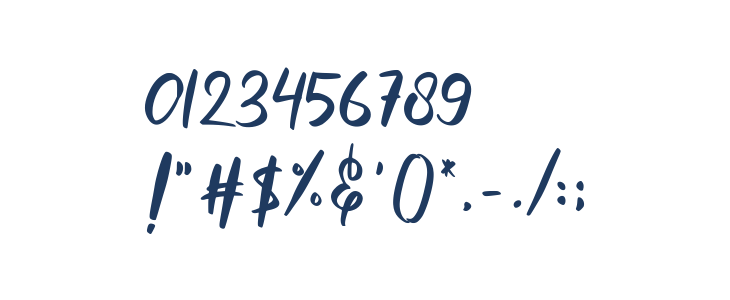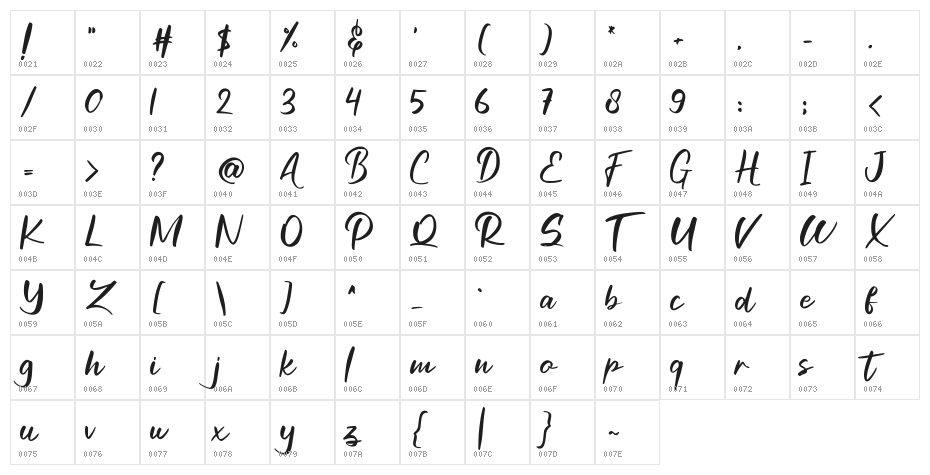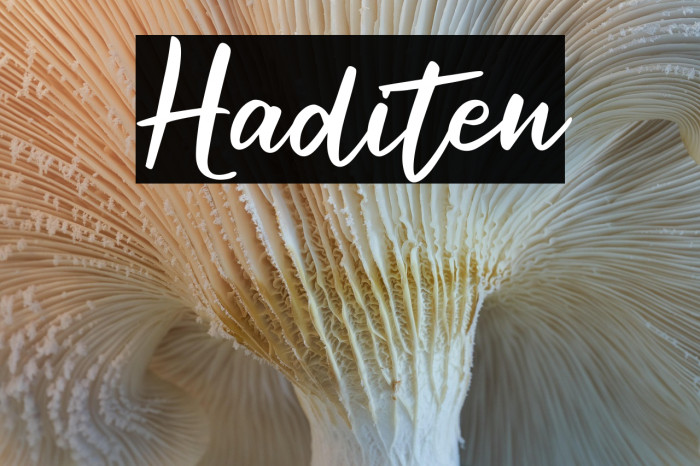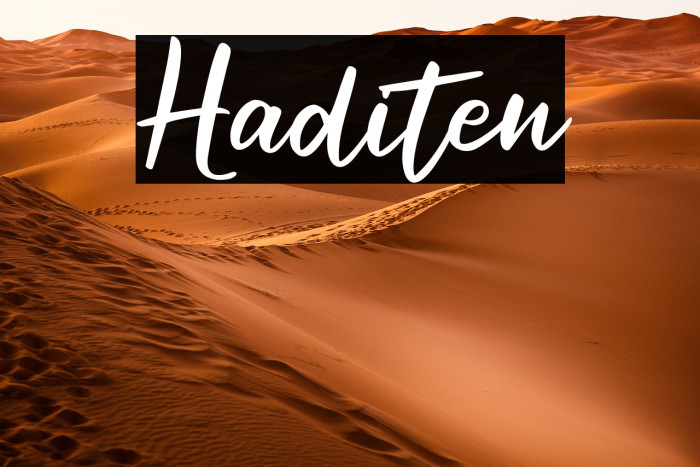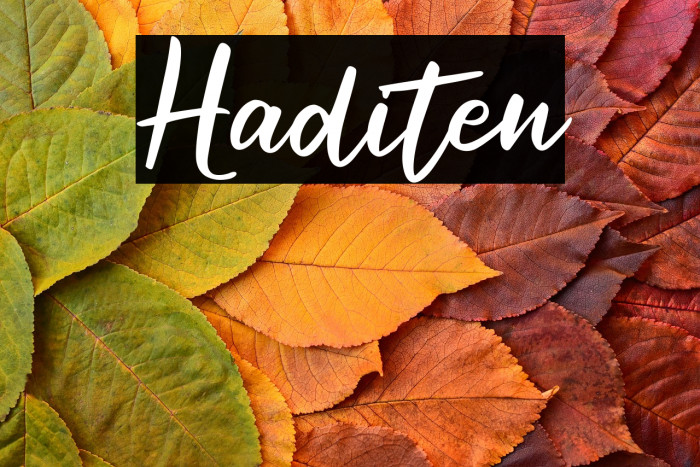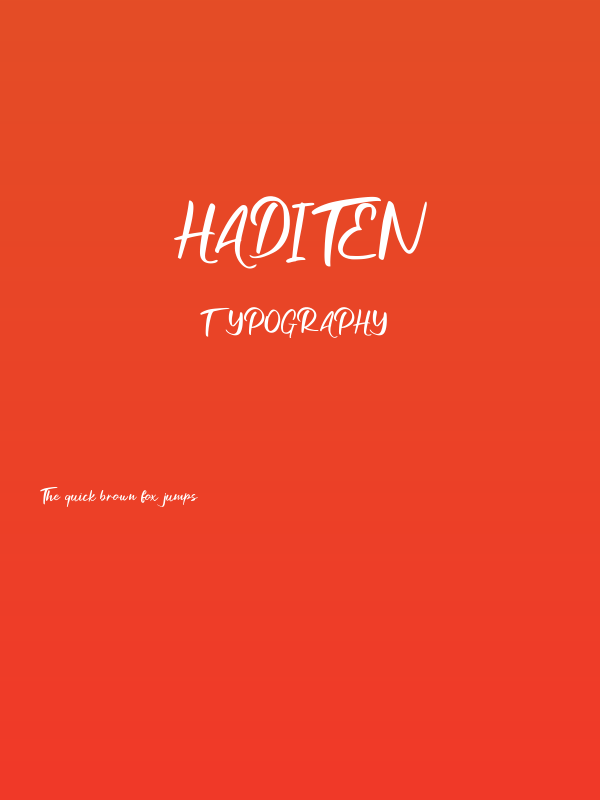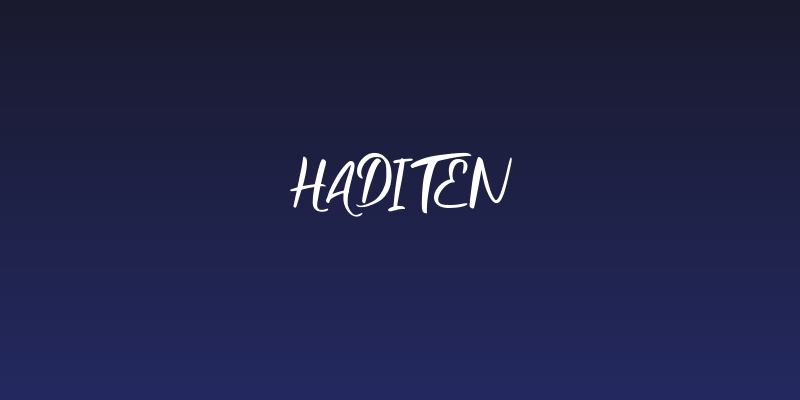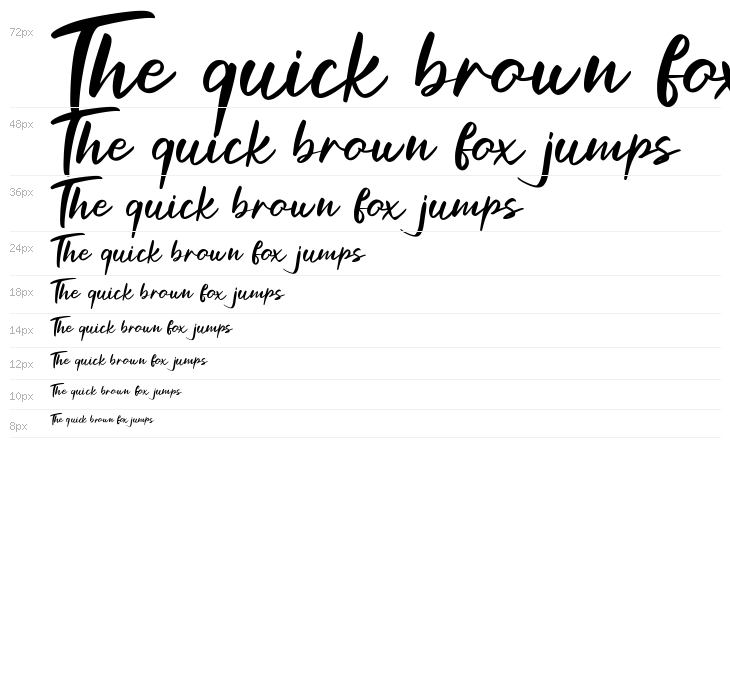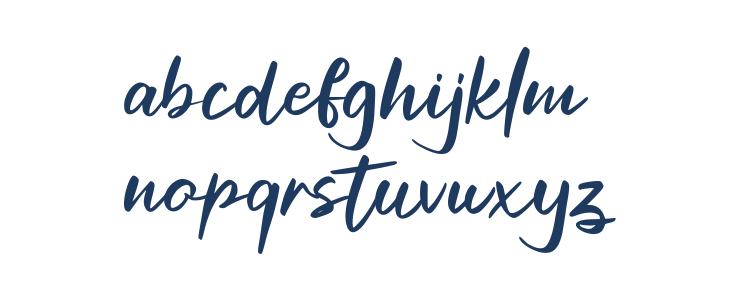
Haditen Font
Haditen Description
This font features a dynamic and fluid script style, characterized by its elegant, flowing lines and smooth curves. The uppercase letters are bold and expressive, with a slight slant that adds a sense of motion and grace. The lowercase letters maintain a consistent style, offering a harmonious blend of thick and thin strokes that enhance readability while retaining an artistic flair. The numerals and special characters are crafted with the same attention to detail, ensuring a cohesive look across all text elements. This font's overall appearance is both sophisticated and approachable, making it suitable for a variety of creative applications.